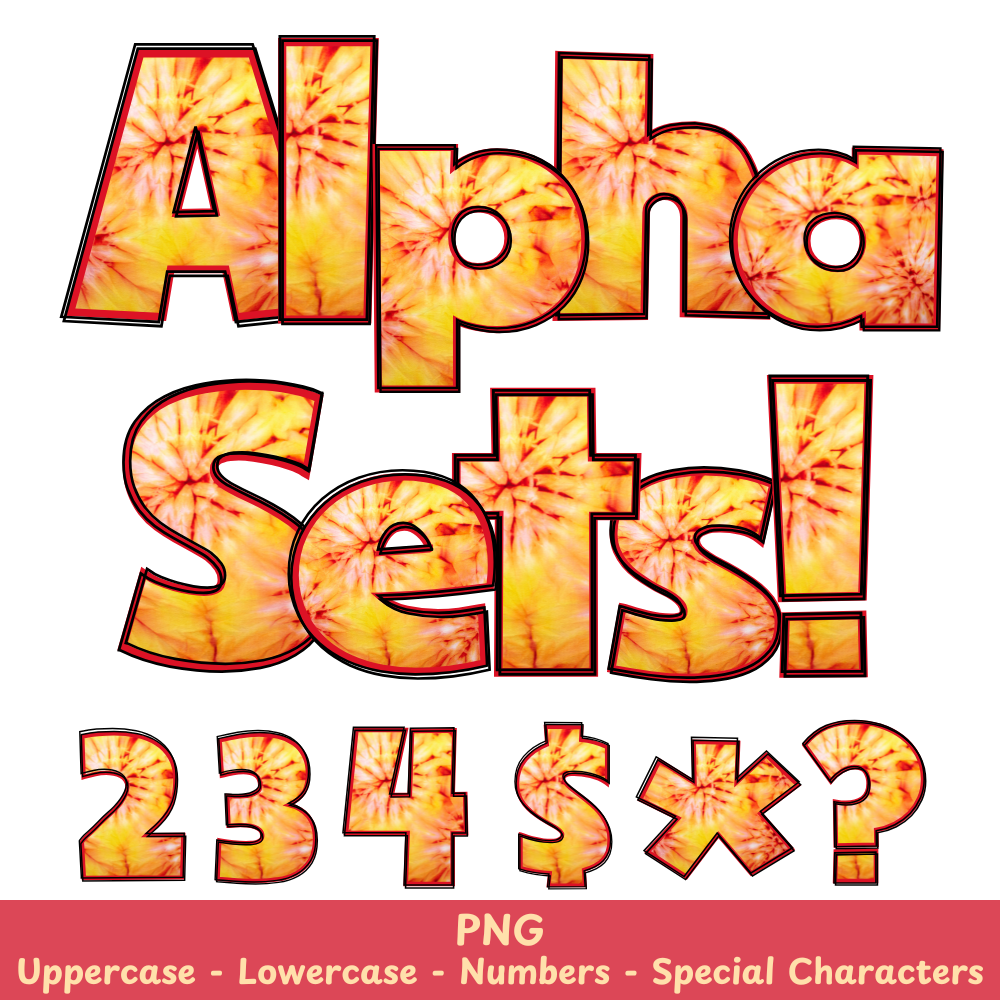
Red Tie Dye PNG Font
Red Tie Dye Alpha Set PNG Font Pack
The Red Tie Dye PNG Font is a versatile and unique design that can elevate your crafts and sublimation projects. Its vibrant red tie-dye pattern adds a pop of color and personality to any project. With its easy-to-use PNG format, you can effortlessly incorporate this font into your designs. Stand out from the crowd with the Red Tie Dye PNG Font.